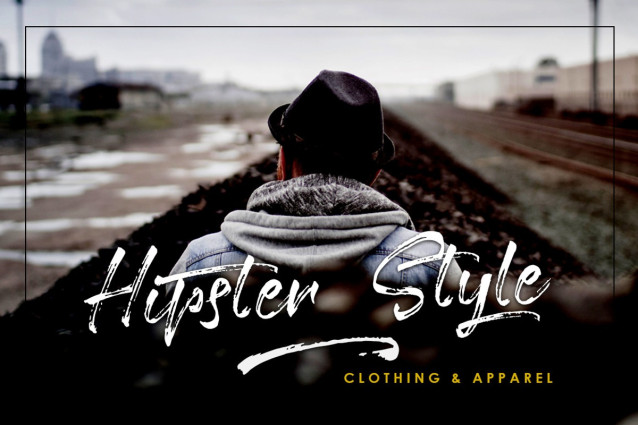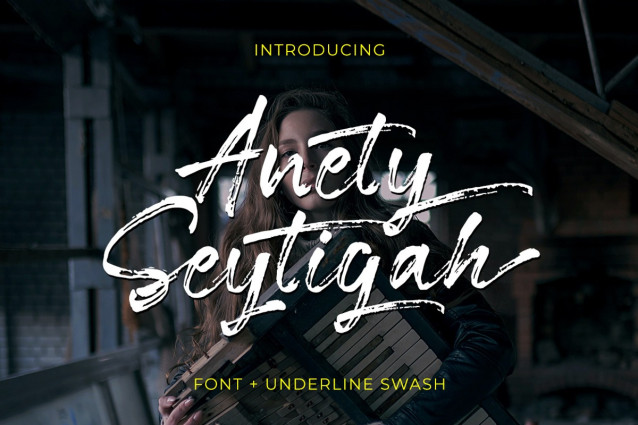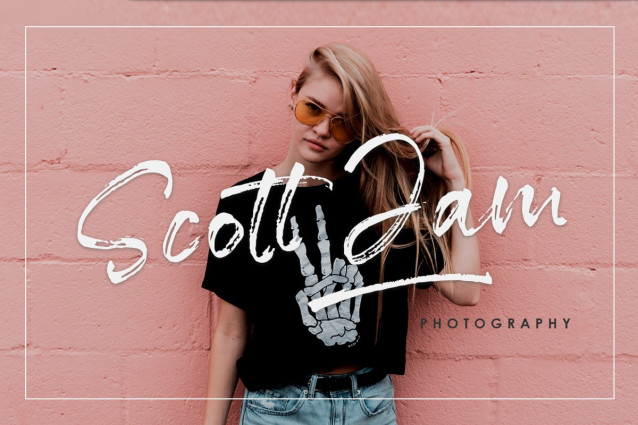
Anety Seytigah Font
Anety Seytigah Font is a modern brush font with a unique textured style and natural, handcrafted underlines. It comes with alternates and swash that add versatility and charm to your designs. Perfect for a wide range of creative projects such as titles, branding, logos, invitations, t-shirts, packaging, posters, greeting cards, and more. This font brings a personal and elegant touch to any design, making it ideal for both professional and artistic use